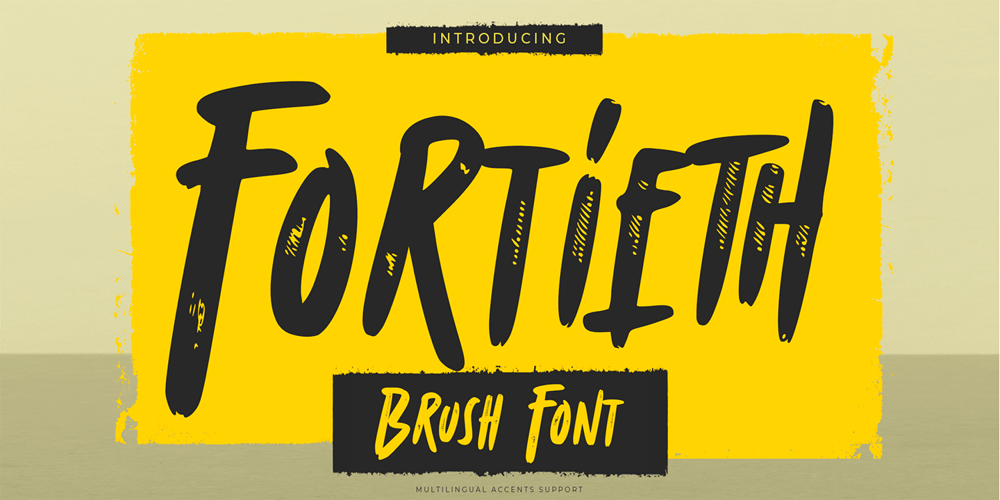
Fortieth Font Family was designed by Abdul Malik Wisnu, Anang Fibriyanto and published by Gassstype. Fortieth contains 1 styles and family package options. Hello Everyone, introduce our new product Font Fortieth This Is Brush Font.This is a Textured Natural Style and classy style with a clear style and dramatic movement.You can activate 7 Ligatures and 42 Alternate glyphs OpenType panel.